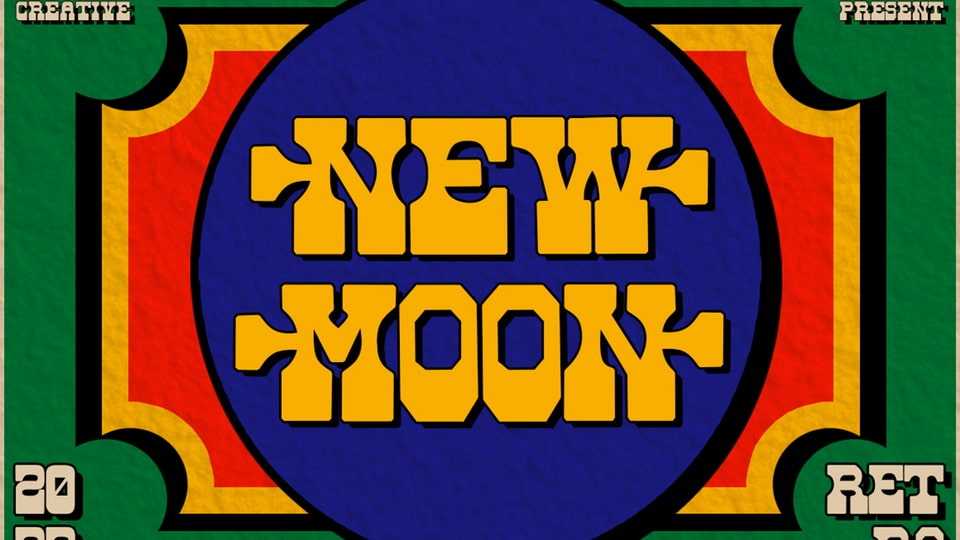
Download New Moon font, a bold reverse contrast display typeface with a retro vibe. New Moon font is perfect for layout displays, headlines, editorial work, logo design, posters and any project that needs a vintage look.
Designer: Elbanadha Creative